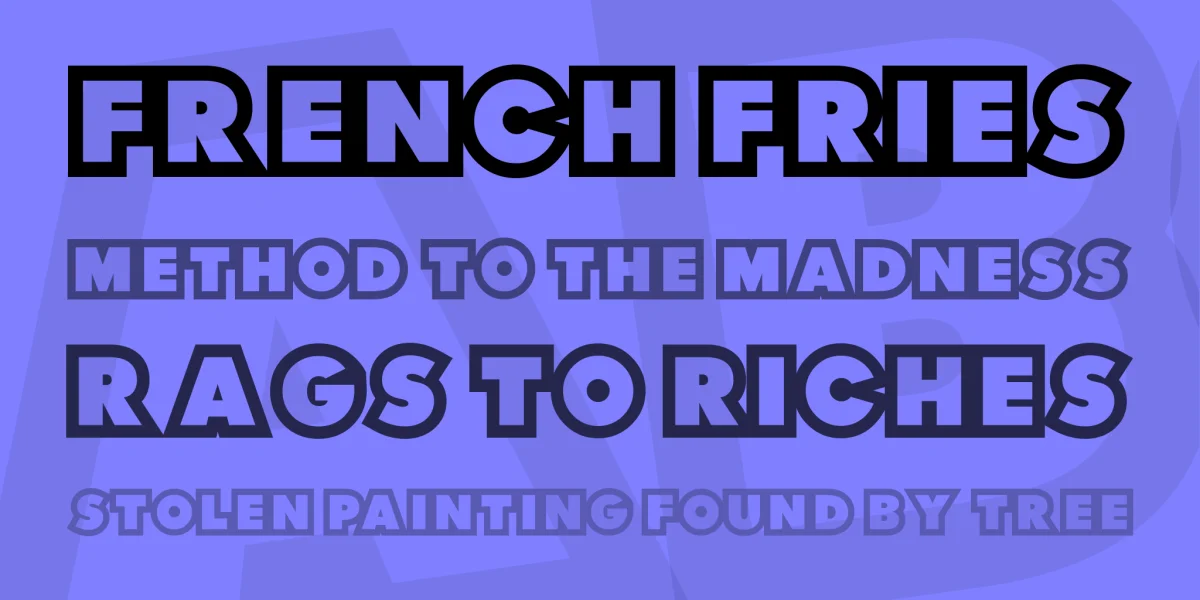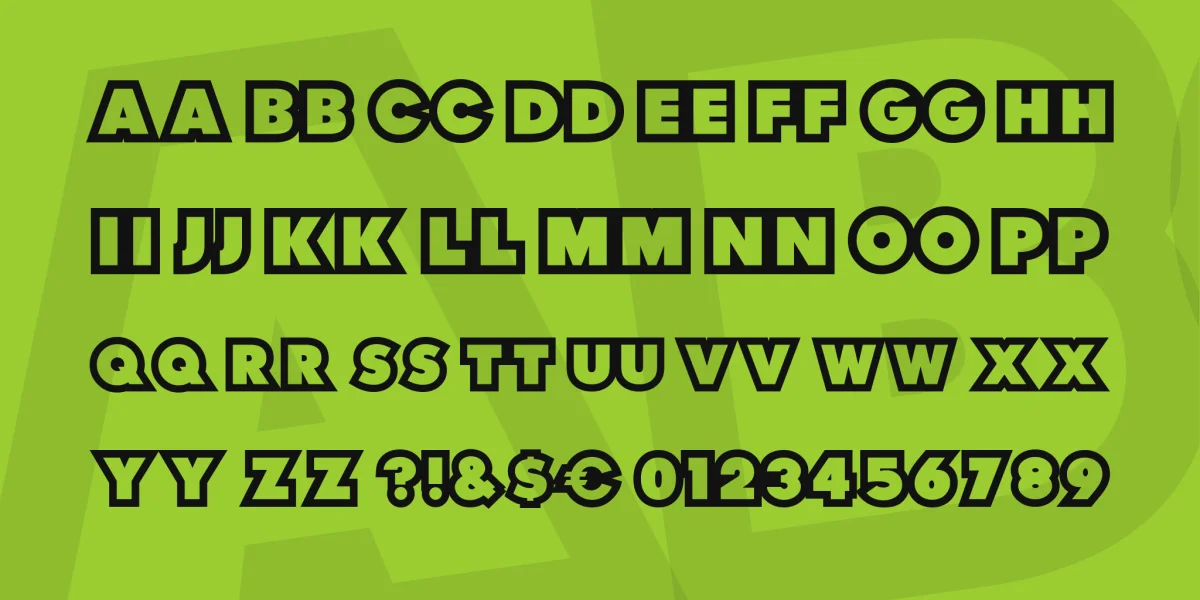
Hi there font fans! Tired of your everyday bold type? Need something with a little more punch? Need a hero? Enter Thunder Lord. This outlined variant of Raiderfont is a faithful translation with a few tweaks and changes. This display font features only uppercase letters and limited punctuation. The lightning bolt can be keyed by pressing the slash button. There are European accents and kerning included. This font is free for any non commerical use. For commercial use please contact me at  to discuss an end user license. I also design logos so drop me a line! I accept donations at the same address via paypal. Your support is very much appreciated. Thanks for having a look!